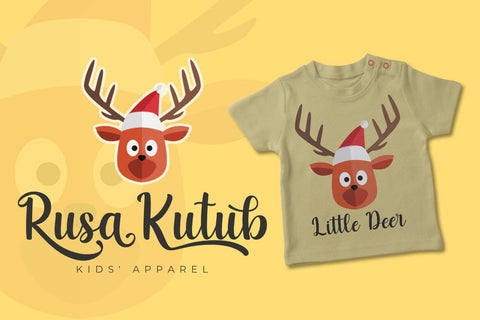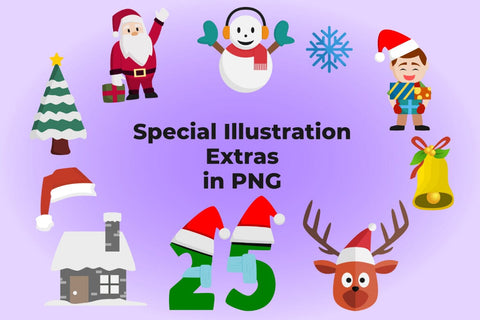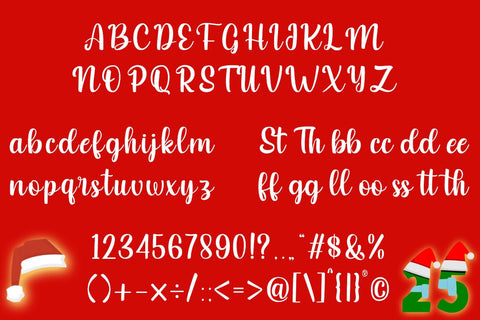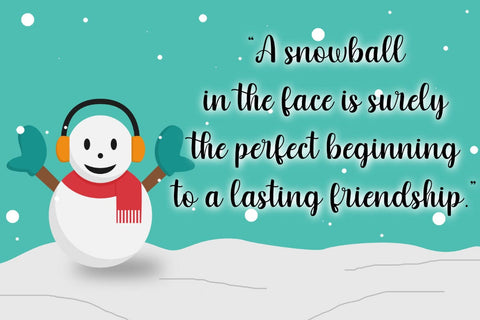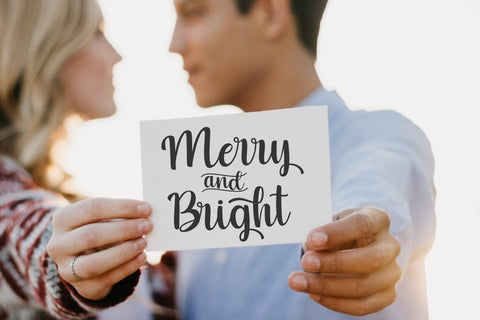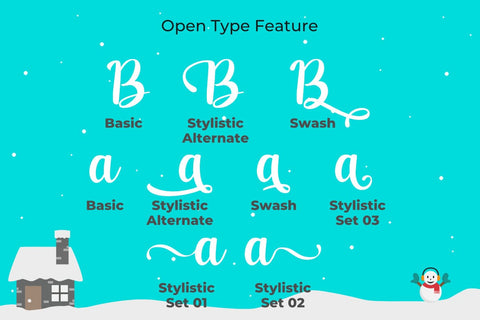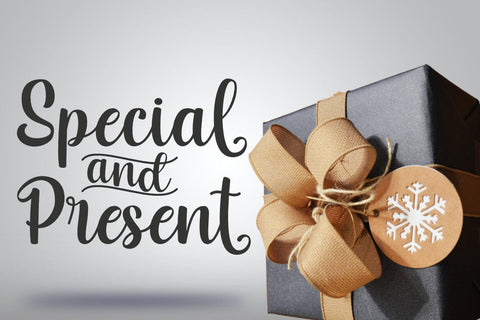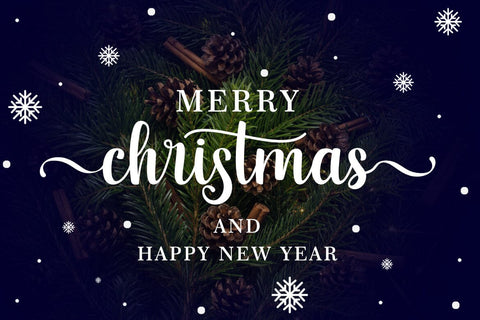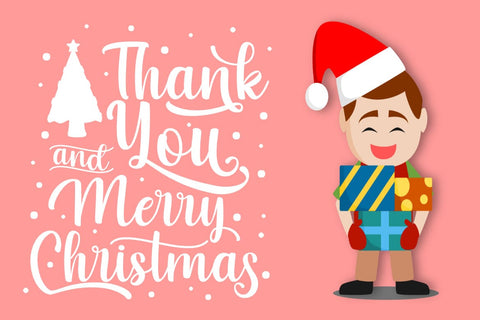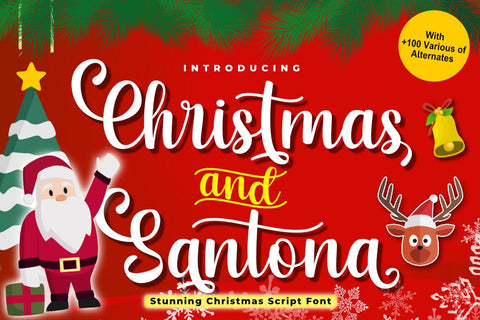
Christmas and Santona
Christmas and Santona is a friendly, fresh, rich, and elegant handwritten font. It is ideal for holiday-themed greeting cards and for any crafting project that requires a romantic touch.
- Ligatures and Alternates